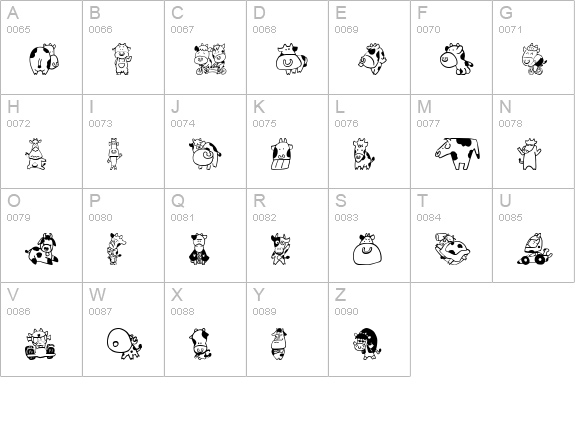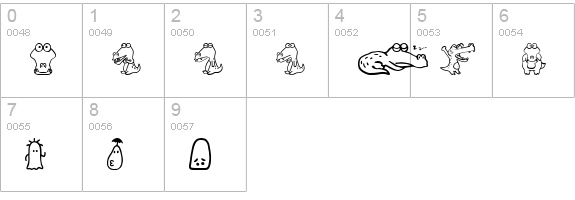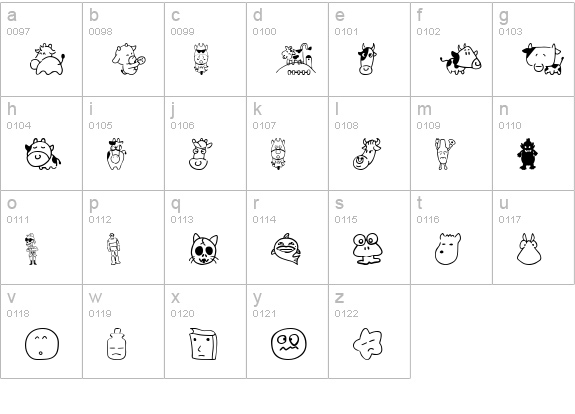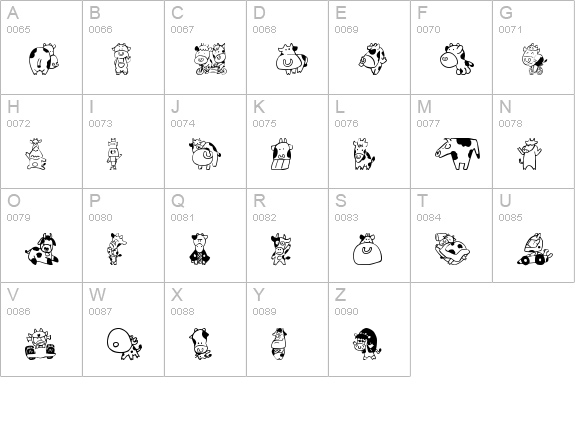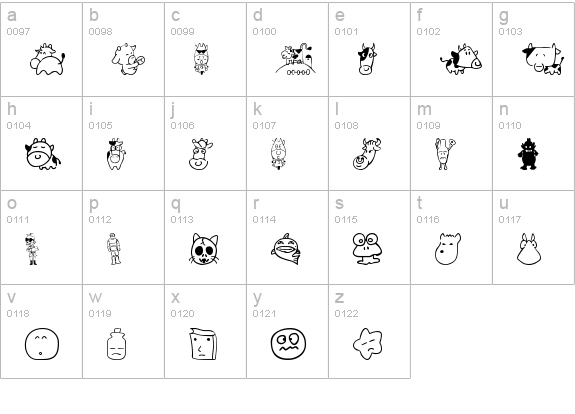
SakabeAnimal03 Font Details
Introducing SakabeAnimal03, a delightful and captivating font that brings a touch of whimsy to your designs. This playful font is perfect for any project that needs a fun and lighthearted feel. SakabeAnimal03 features charming animal illustrations incorporated into each letter, adding a delightful twist to your typography. Whether you're designing invitations, creating children's book covers, or crafting playful social media graphics, this font will surely captivate your audience and bring a smile to their faces. But the best part? SakabeAnimal03 is absolutely free! That's right, this fantastic font is freely available to download at FontsMarket.com. You can easily enhance your designs without breaking the bank, making it an excellent choice for designers, artists, and anyone looking to add a touch of whimsical charm to their work. With its unique and eye-catching visuals, SakabeAnimal03 is sure to stand out and make a lasting impression. So why wait? Download this incredible font today and let your creativity soar with its playful and captivating style.